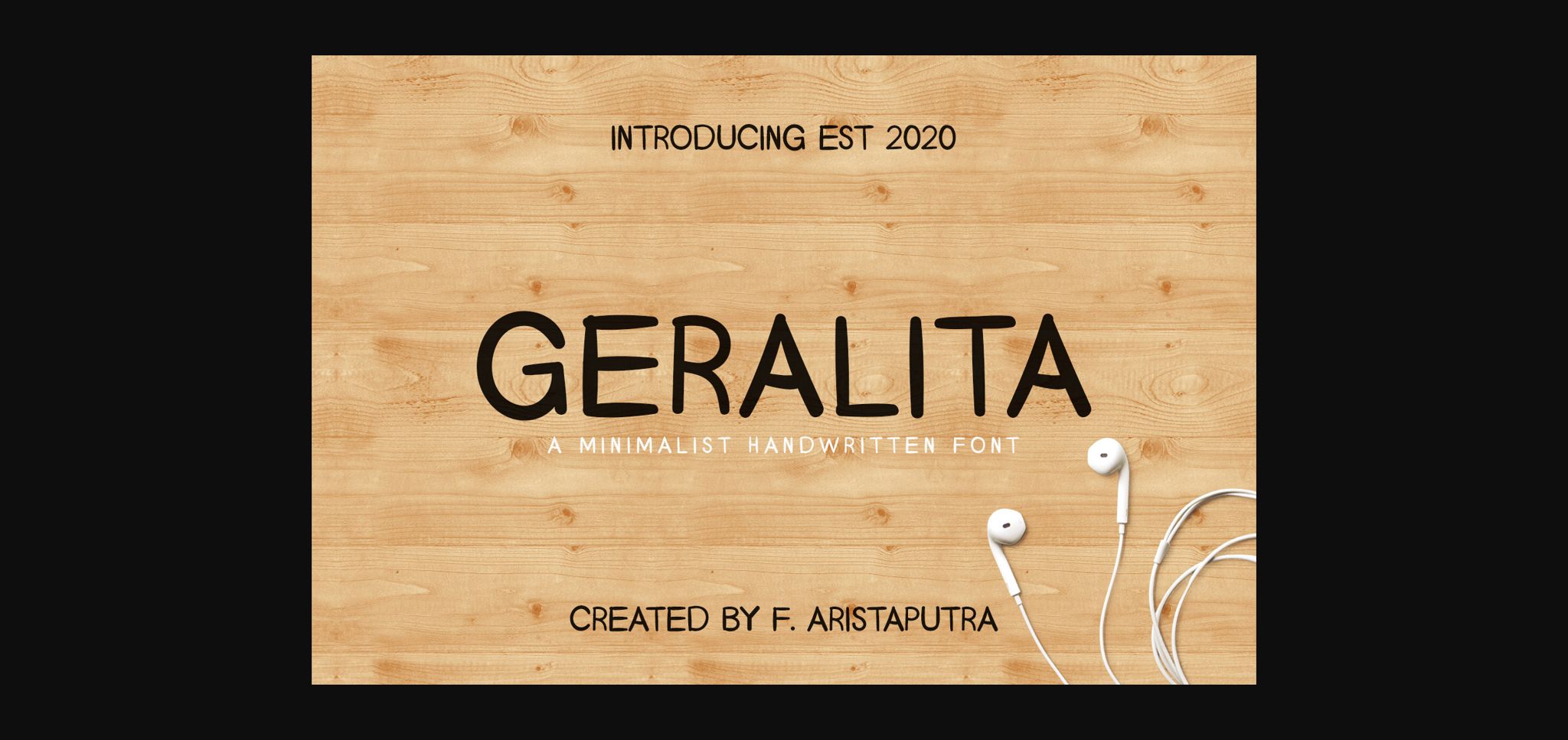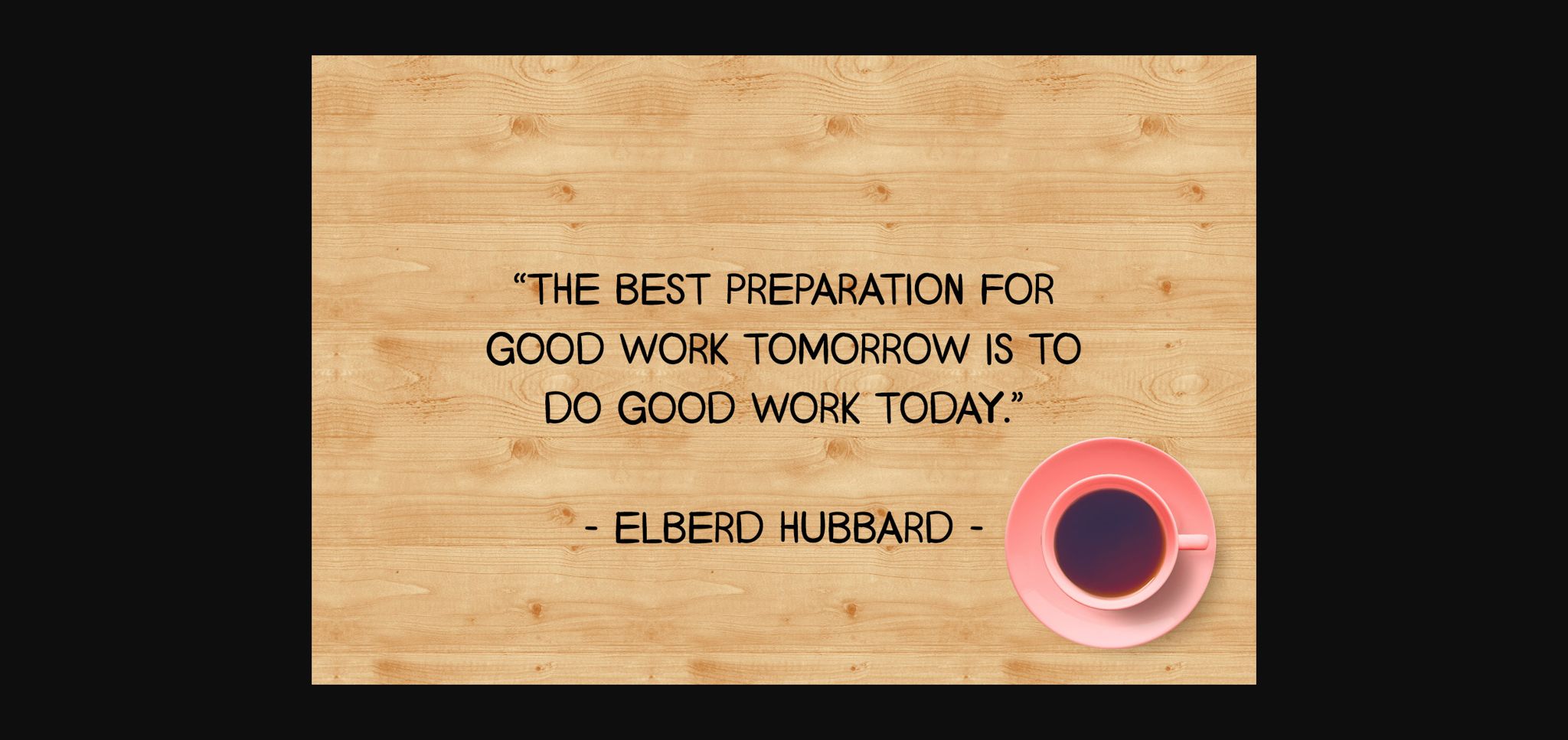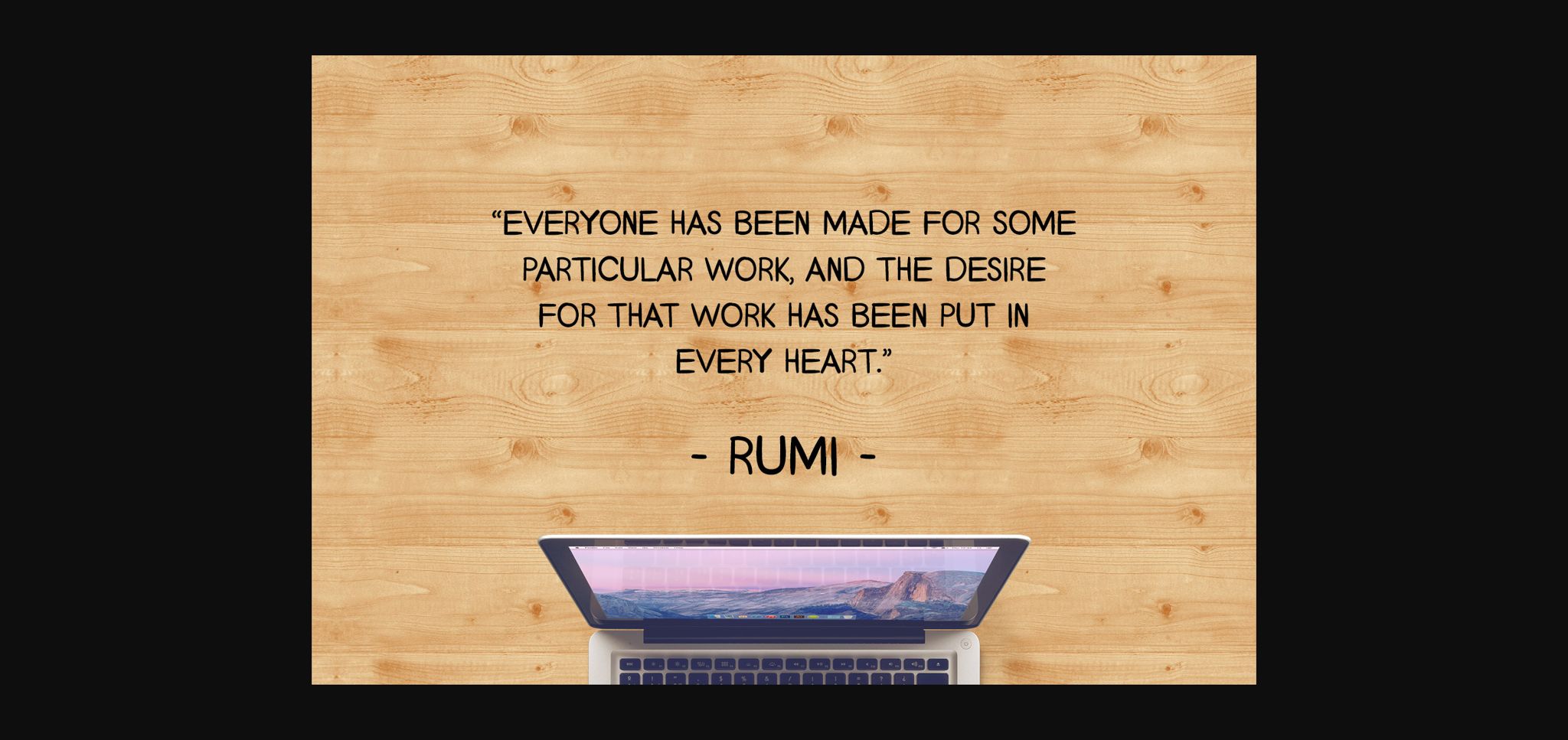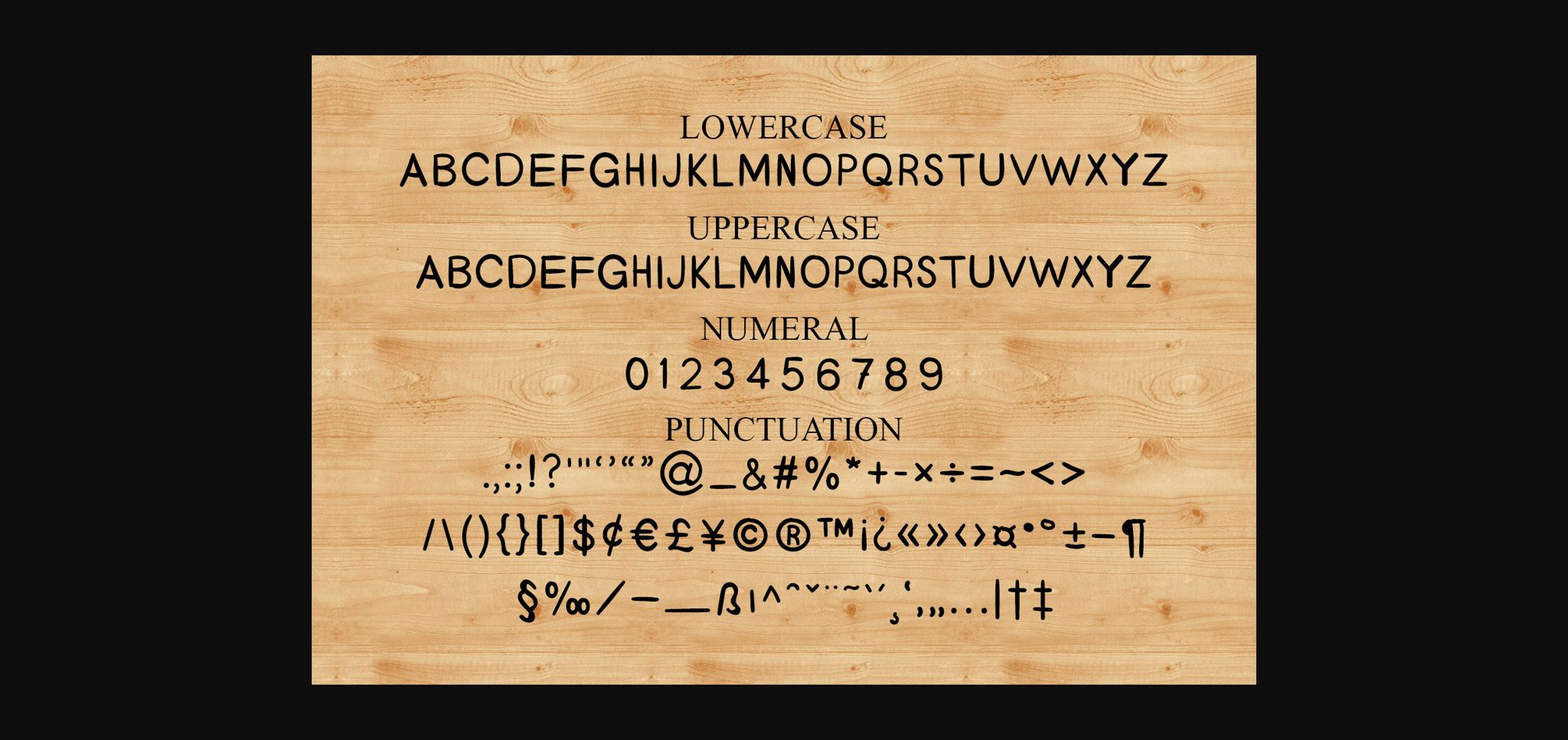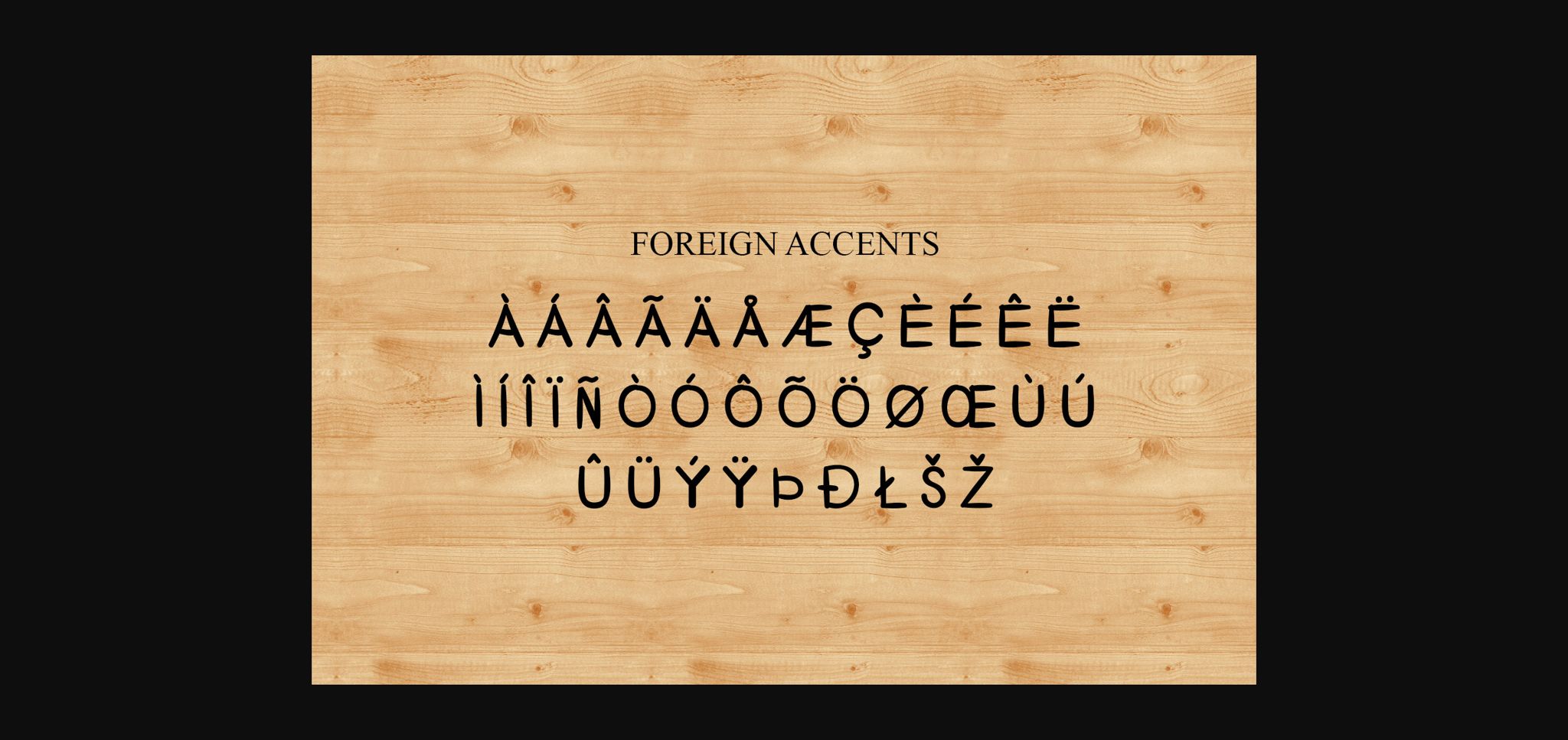
HomeSans Serif FontsGeralita Font Sans Serif Fonts Geralita Font FacebookXPinterestWhatsApp 1 of 7 ... Geralita Font Poster 2... Geralita Font Poster 3... Geralita Font Poster 4... Geralita Font Poster 5... Geralita Font Poster 6... Geralita Font Poster 7... About Geralita Font Geralita is a neat sans serif font. It features a timeless style that can easily be matched to a large set of projects, so add it to your creative idea and see how it makes them stand out! DOWNLOAD NOW People also explored White Rabbit Font Gatteway Font Thanks Font Botanical Font Mount Lawu Font Sweet Memory Font Arcano Ornamental Mono Font Hello Chanki Font 364 0 TagsGeralita Font Previous articleSausage FontNext articleEspainol Font LEAVE A REPLY Cancel reply Comment: Please enter your comment! Name:* Please enter your name here Email:* You have entered an incorrect email address! Please enter your email address here Website: Save my name, email, and website in this browser for the next time I comment. Personal Use Free Befindisa Personal Use Free Read more about this font Geuli Personal Use Free Read more about this font Meloche Book Personal Use Free Read more about this font BD Algebra Personal Use Free Read more about this font BLOG How to Install and Use Fonts on Windows, macOS, and Web Projects How to Install and Use Fonts on Windows, macOS, and Web Projects Fonts are a crucial part of design and branding. Whether you’re designing a... Using Fonts in Digital Marketing: Tips to Strengthen Your Brand Identity Fonts That Capture the Spirit of New York City Best Fonts for YouTube Videos: Make Your Thumbnails Stand Out